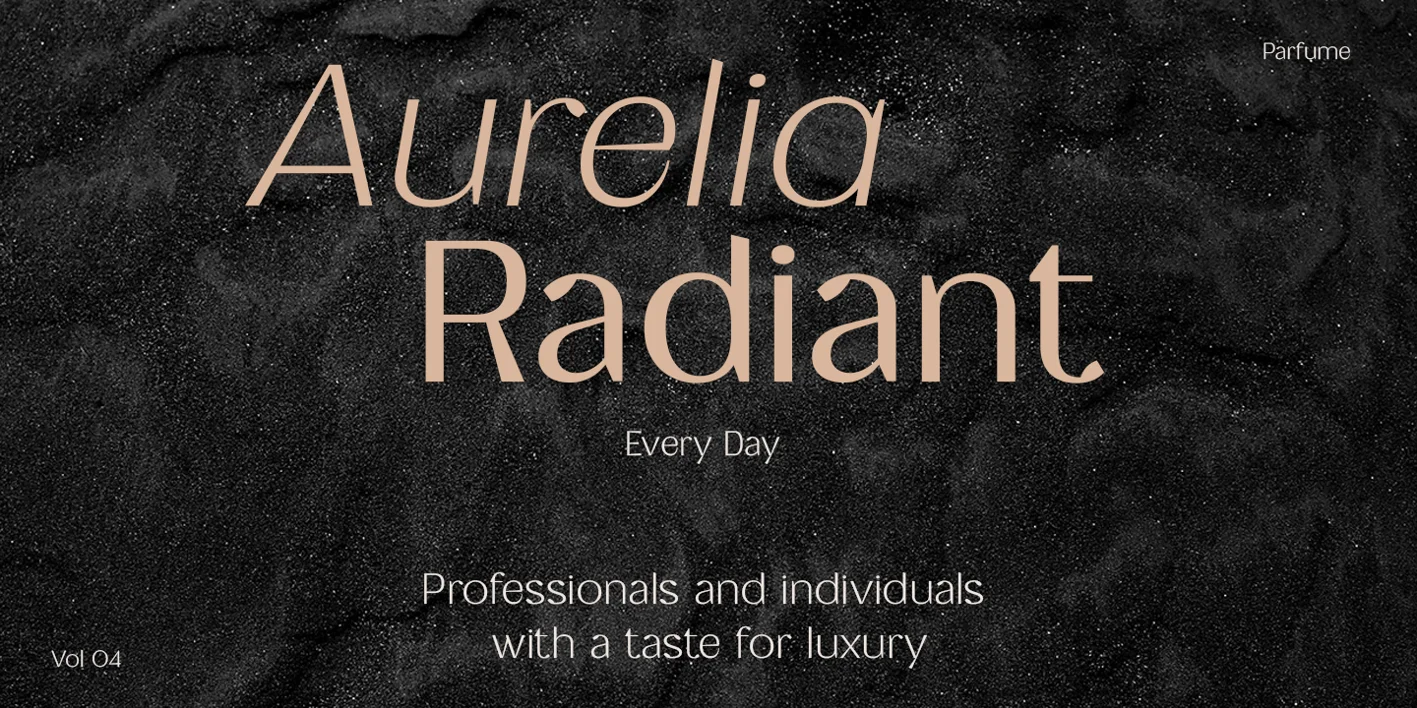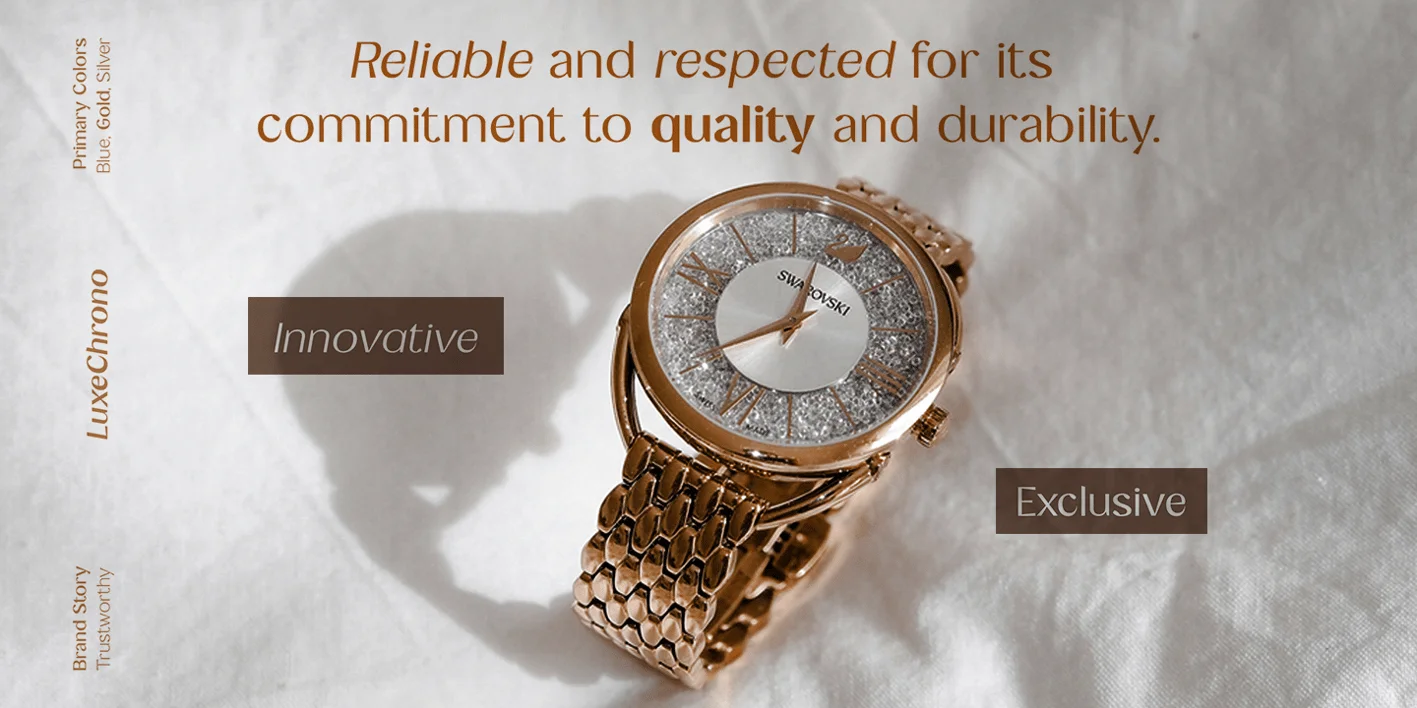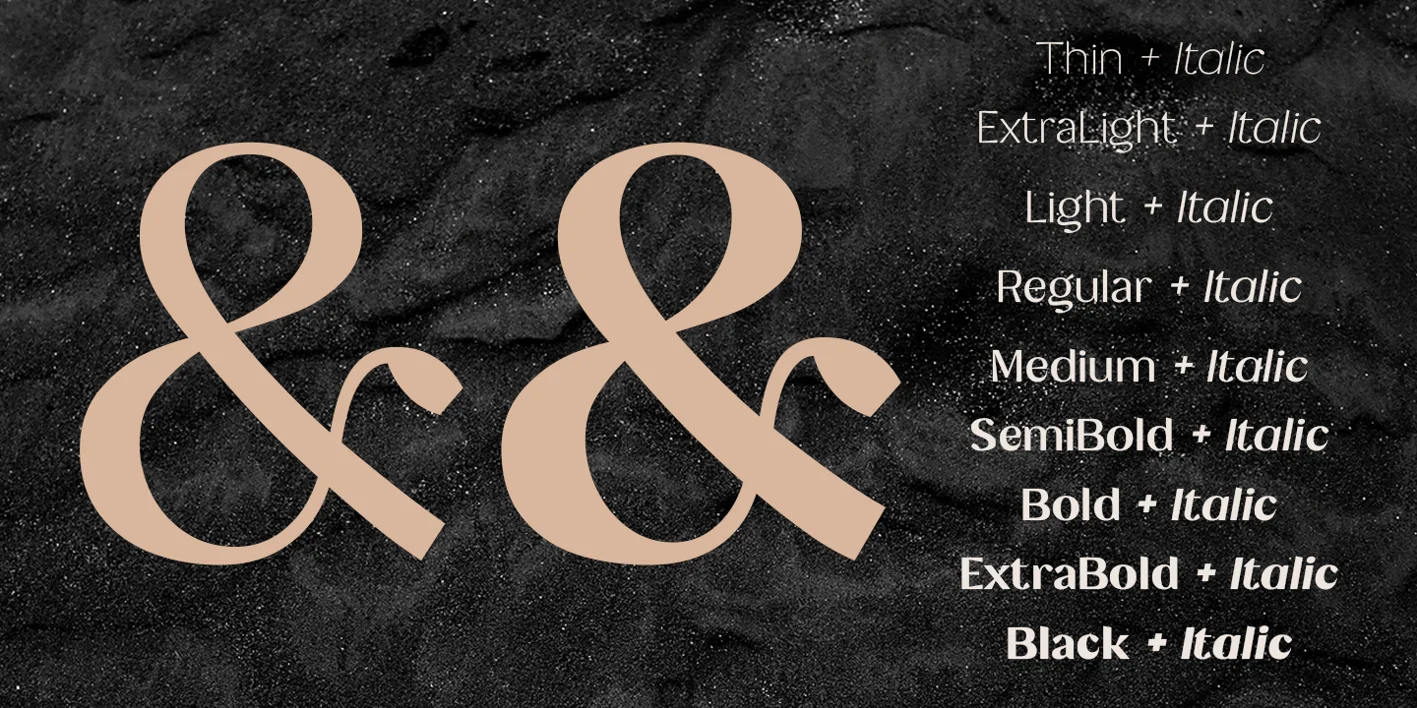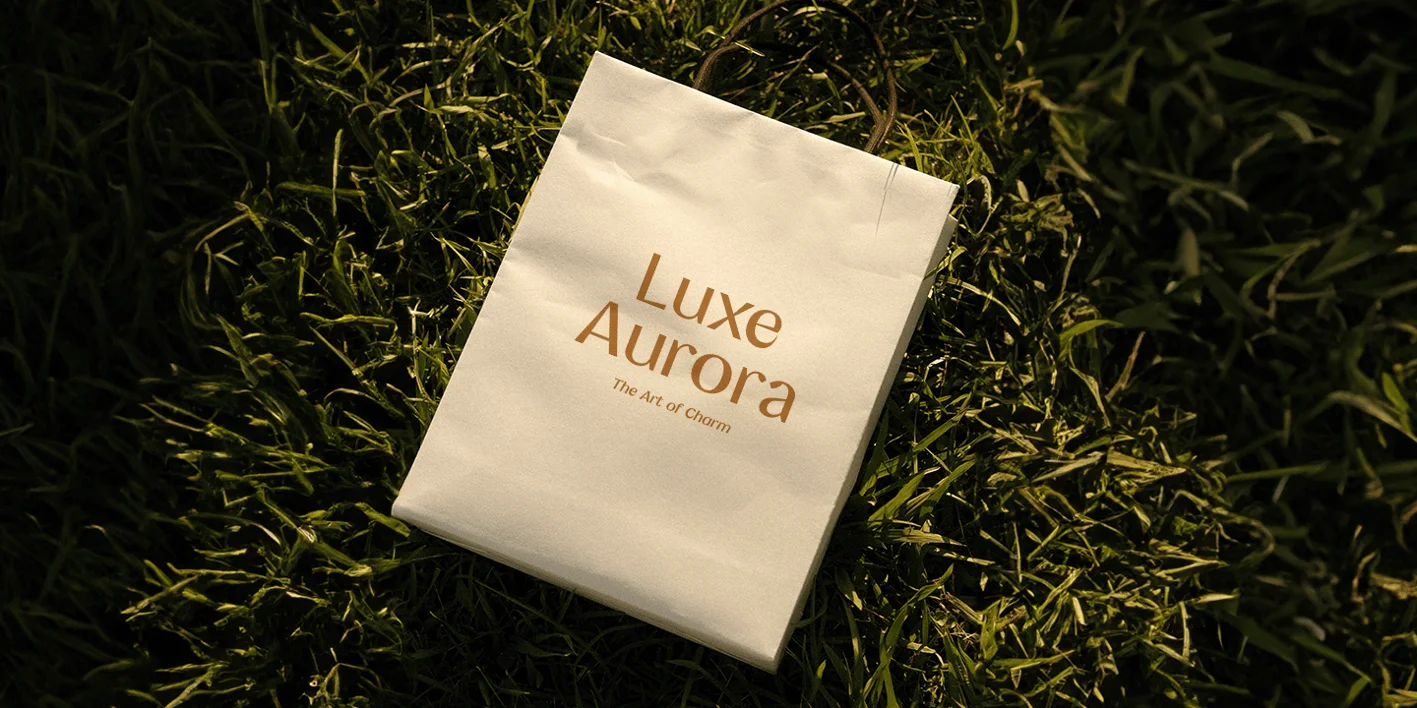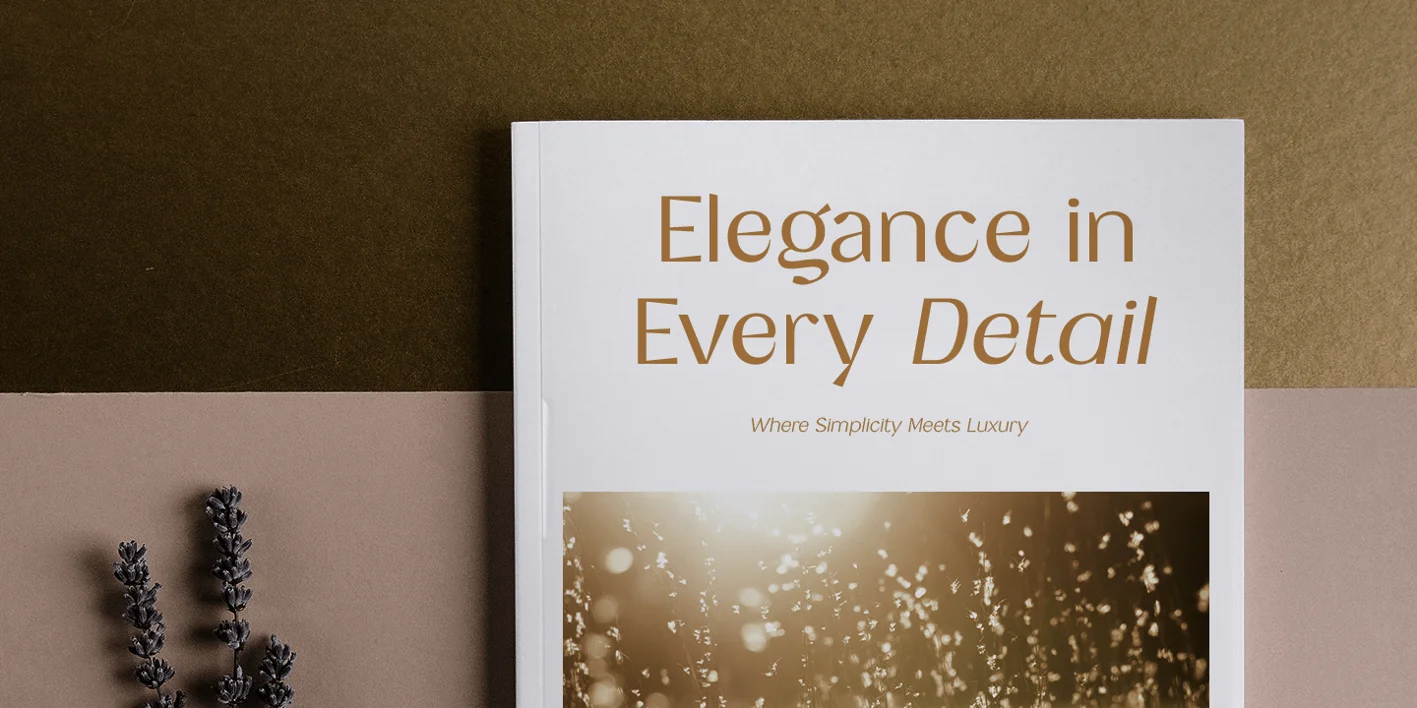
Kingcup Font
Typography shapes perception at a subconscious level. Kingcup leverages optical balance across all weights to make every composition feel considered. The typeface brings a versatile sensibility to a broad range of creative disciplines, with refined proportions and careful stroke modulation that holds up whether the work is print-first or screen-first.
In practice, Kingcup proves particularly effective for editorial layouts, product labels, environmental graphics, web design, logo design. Designers reaching for it find that the type decisions feel resolved rather than laboured — a useful quality when client timelines are tight.
The range of applications extends to annual reports, social media graphics, signage systems, advertising campaigns. That breadth is deliberate: the proportions and spacing were stress-tested across a wide range of mock briefs before the typeface was finalised.
In-house creative teams at consumer brands find Kingcup a reliable choice for projects that demand both personality and restraint. The design avoids the self-conscious quirkiness that dates quickly, settling instead for considered distinctiveness that holds up over time.